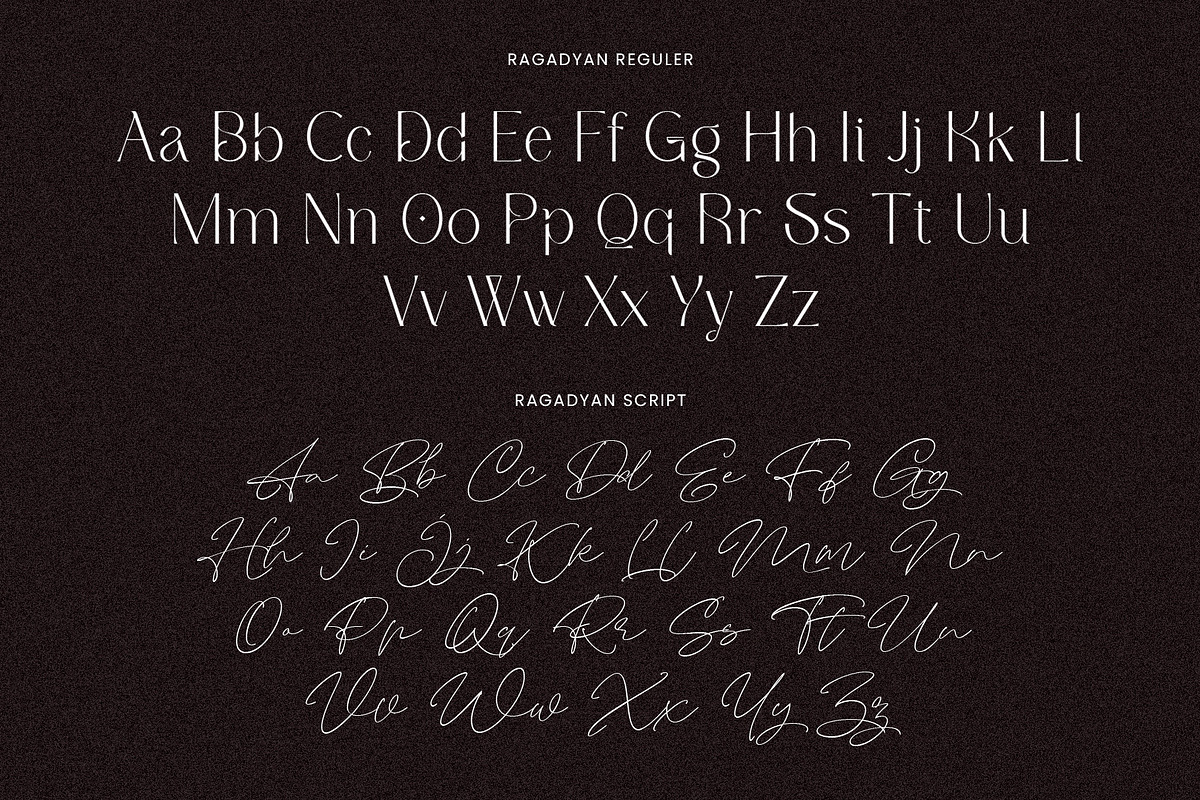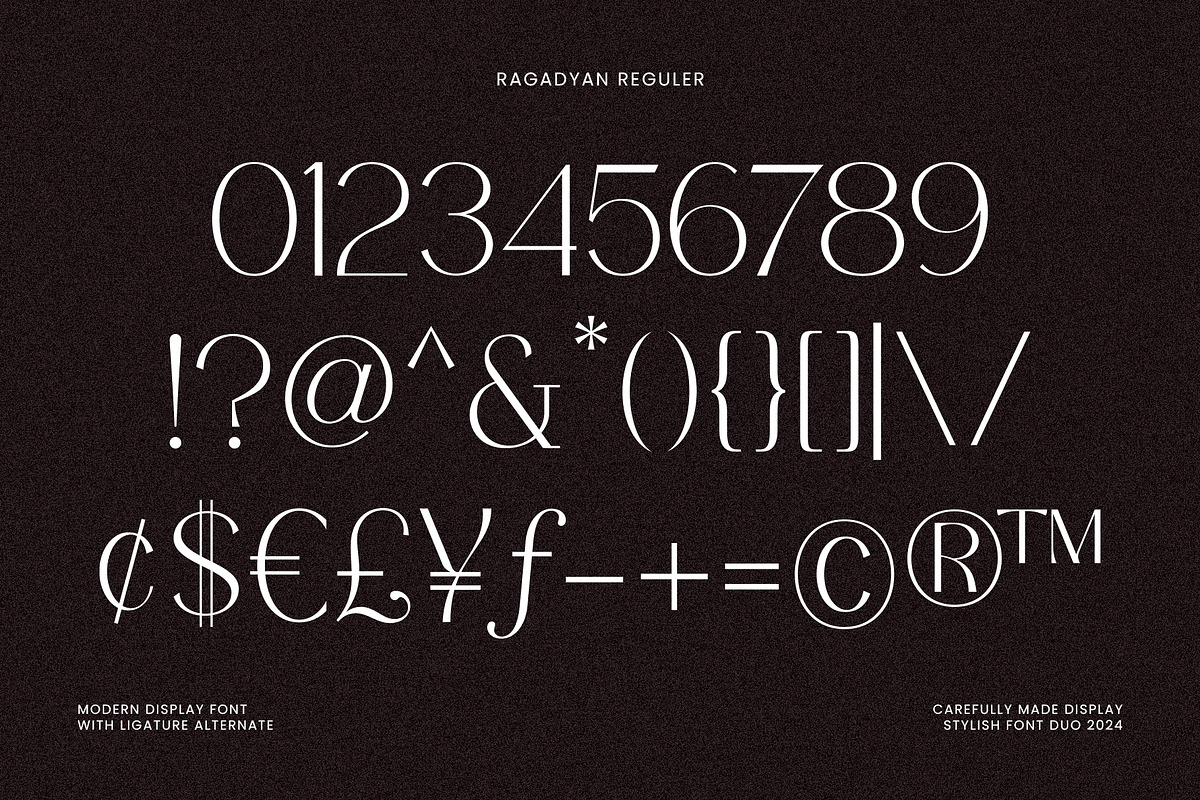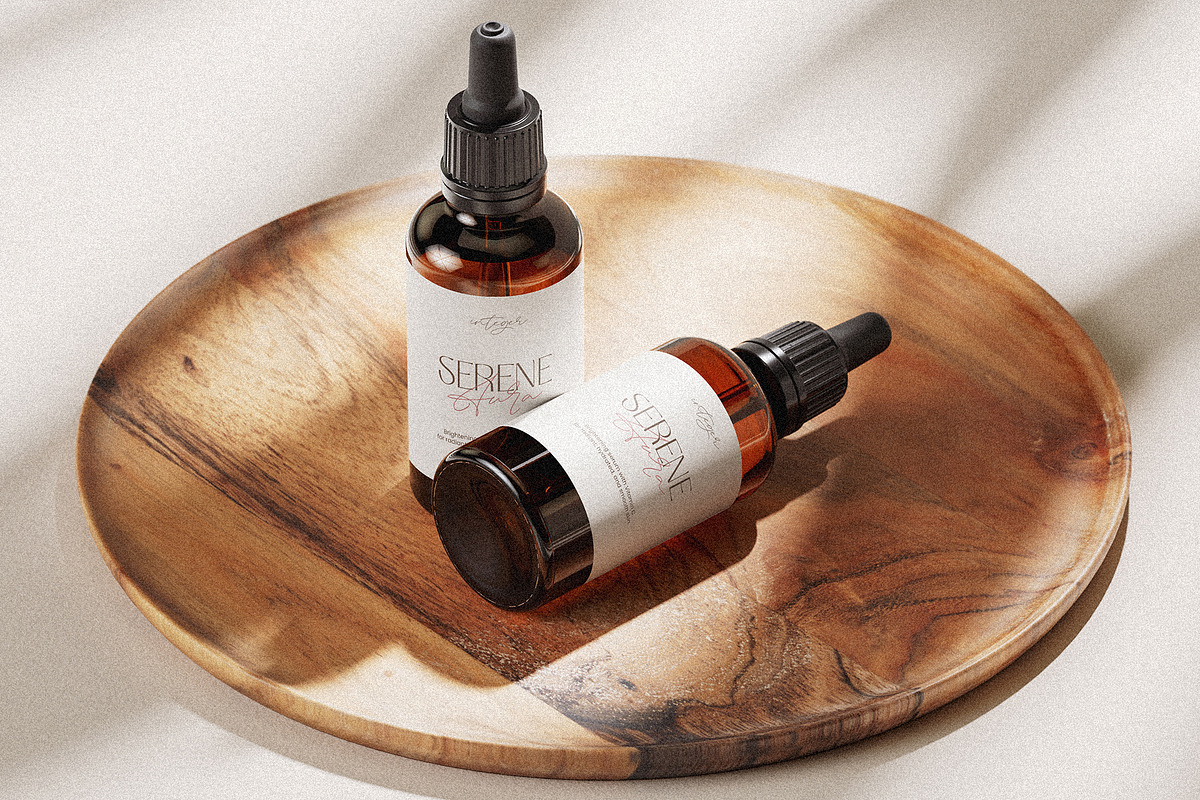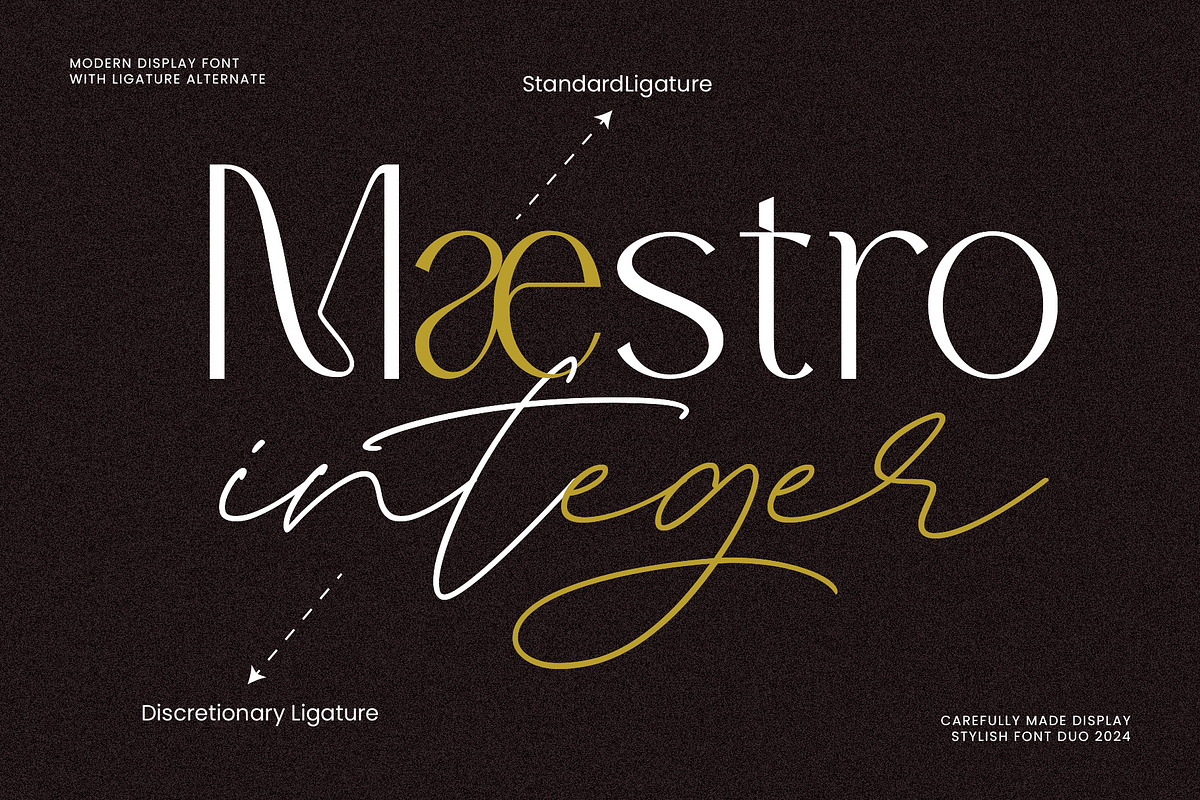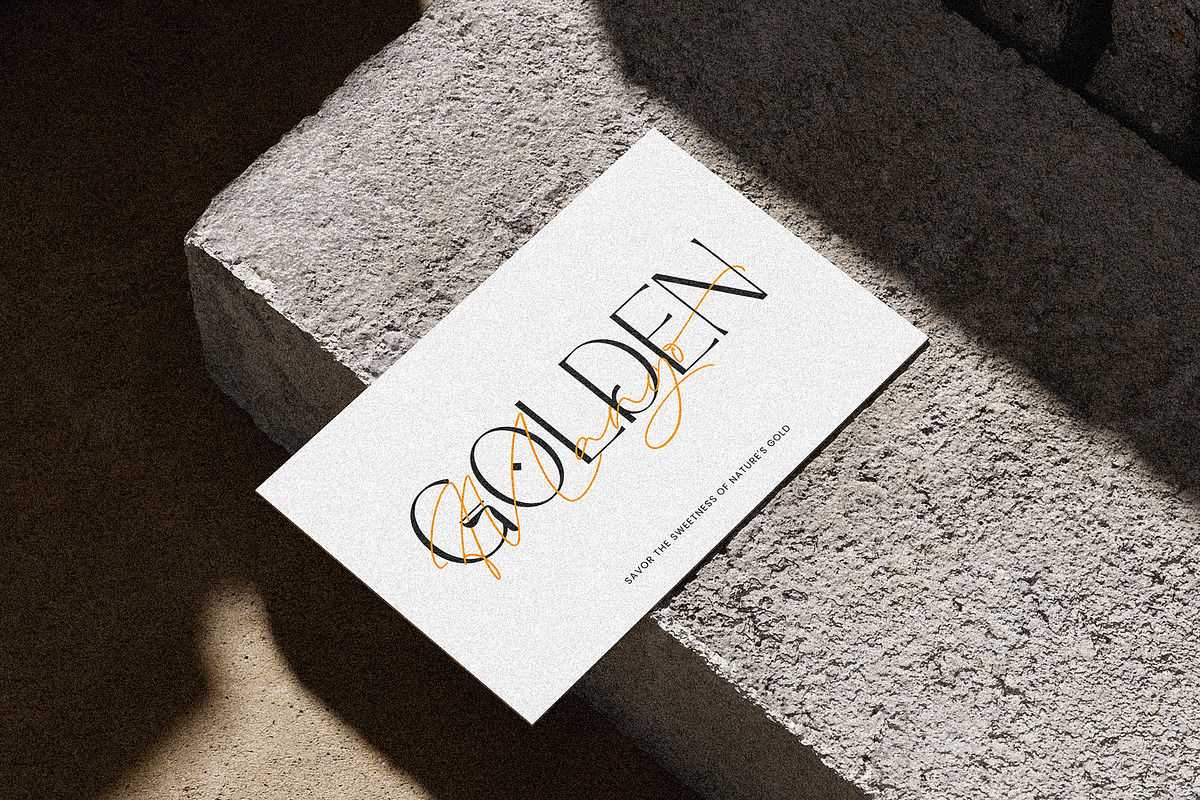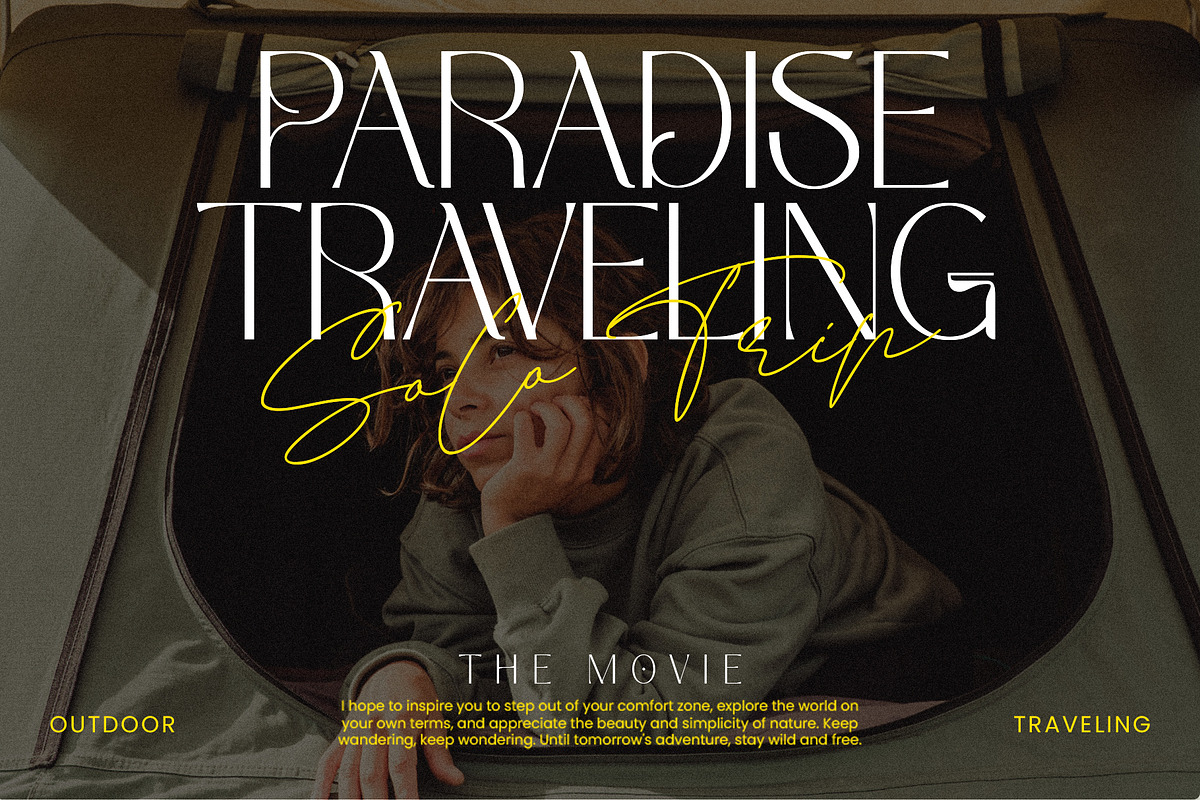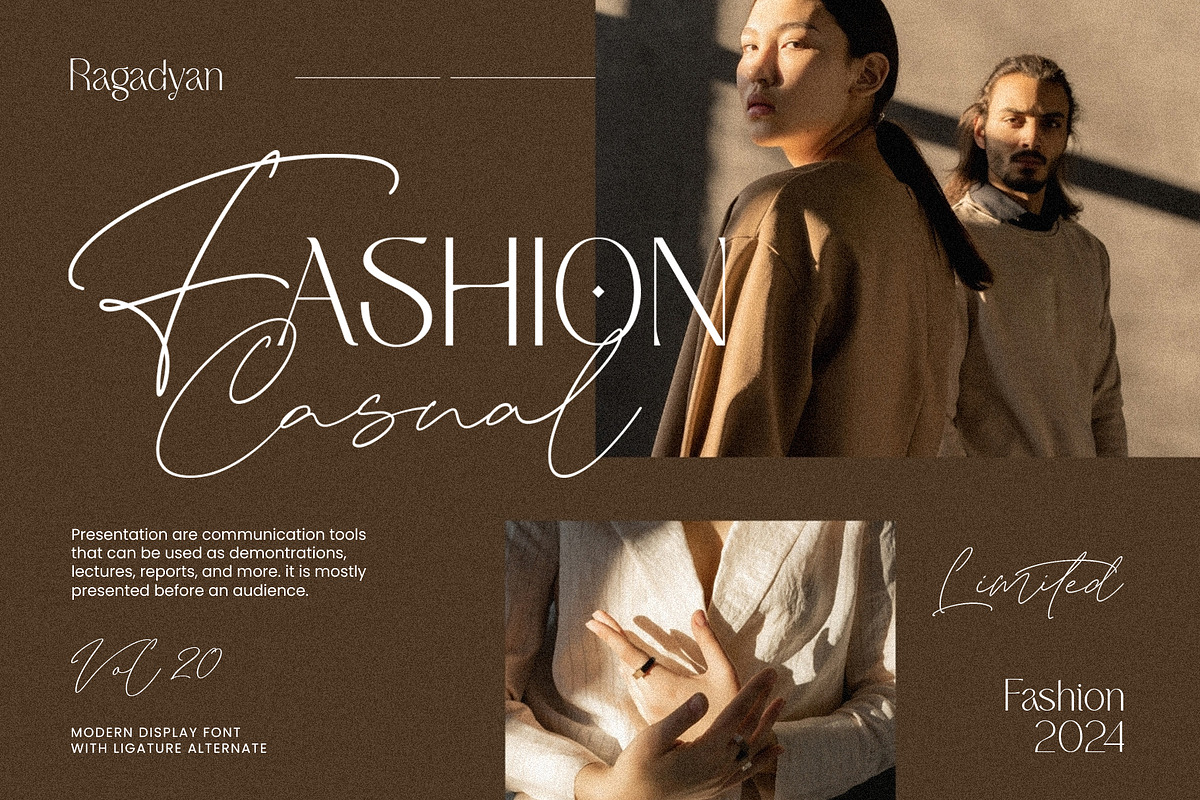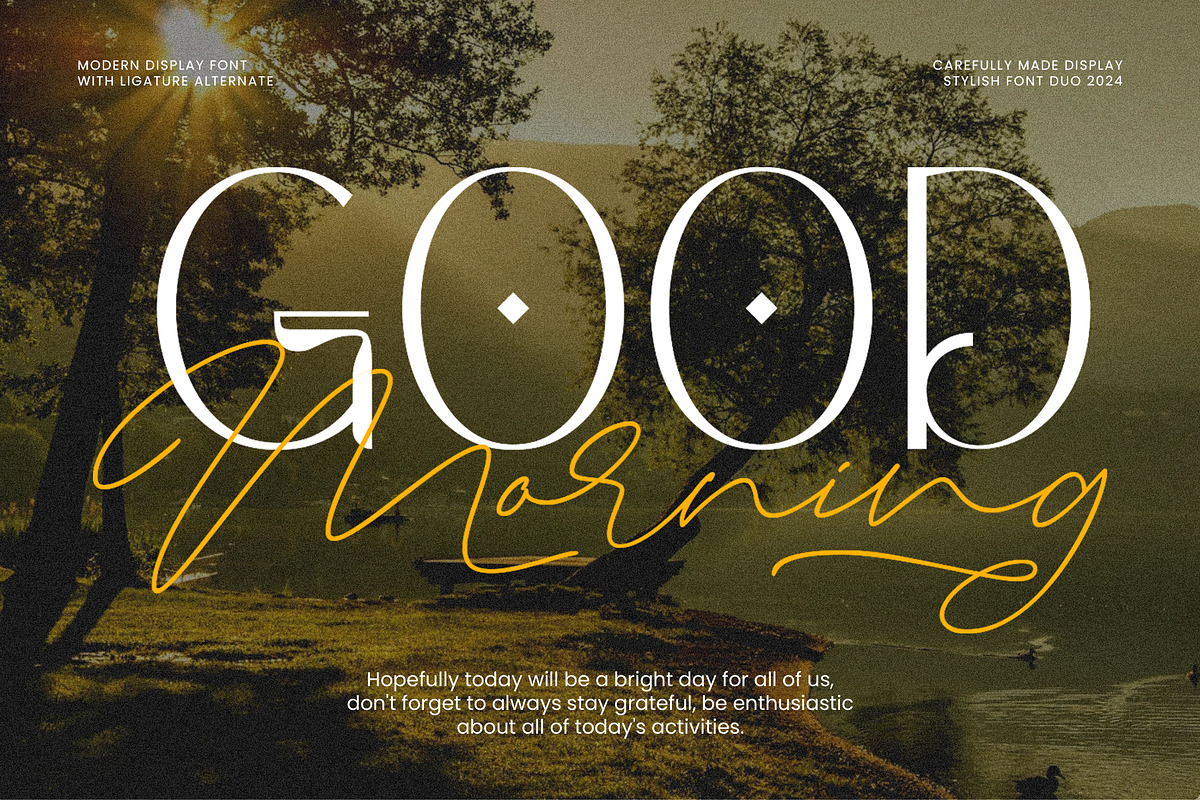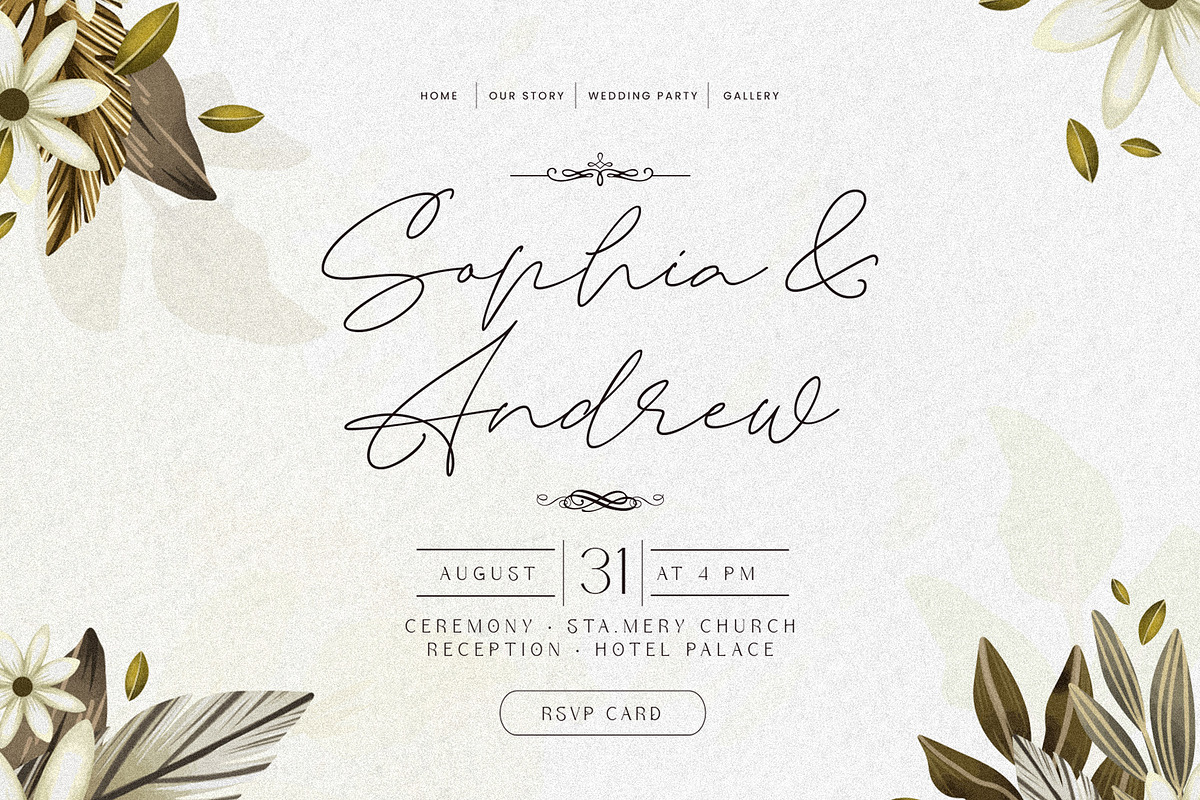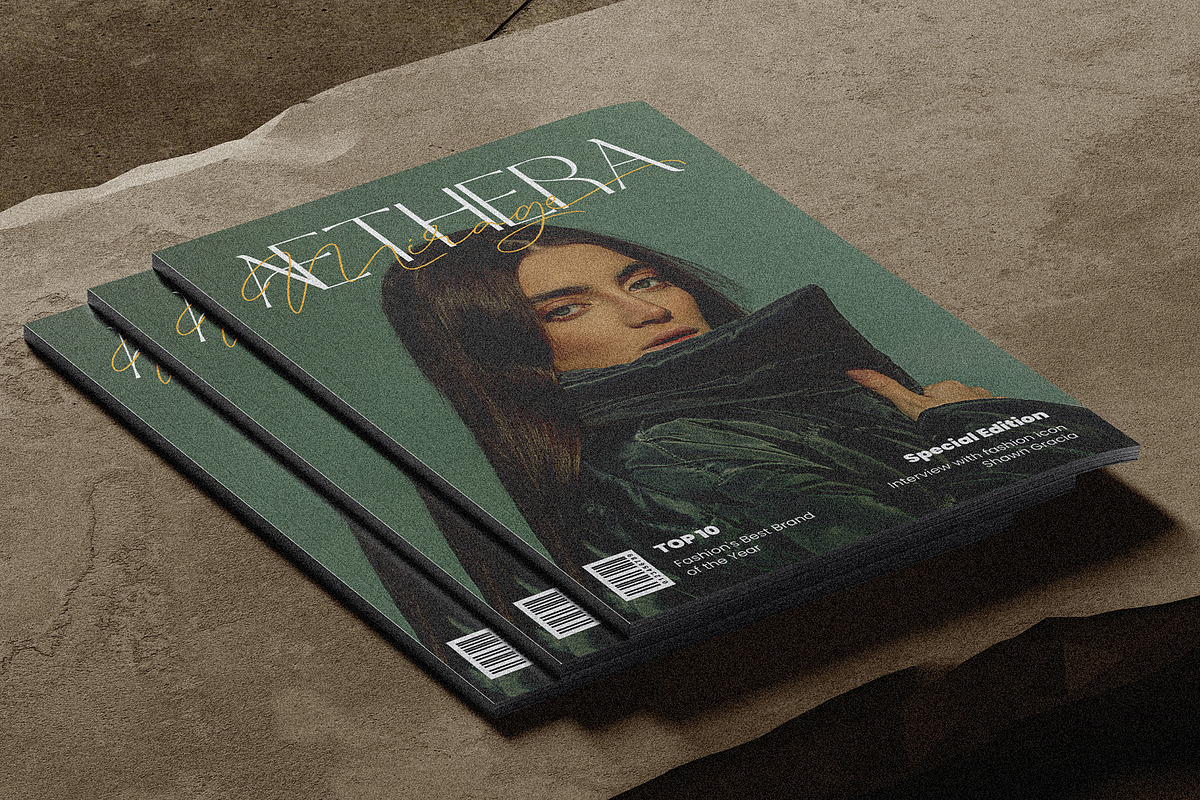
Ragadyan - Modern Duo Font
Discover a trendy modern duo font, blending elegant script with clean sans-serif for versatile designs perfect for branding and invitations.
- Uppercase & Lowercase Characters: Fully designed for a complete typographic experience
- Numerals & Punctuation: All the numbers and punctuation marks you need for any design task
- Multilingual Support: Includes characters for multiple languages, ensuring global usability
- High-Quality Design: Each font is crafted with attention to detail, ensuring a polished and professional look